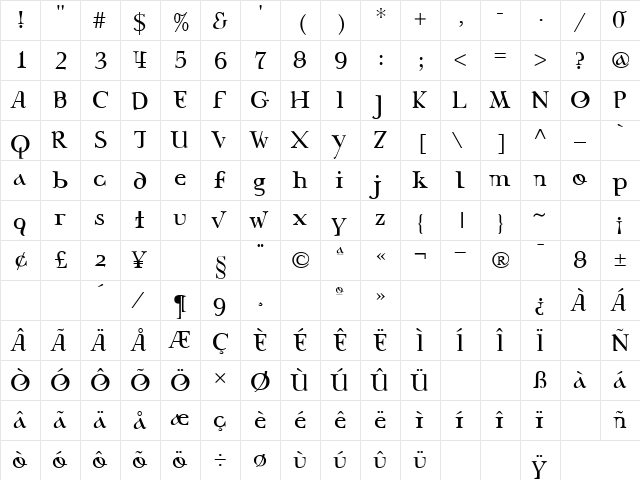
CaseSeraSeraLight Regular
Design Context for CaseSeraSeraLight Typeface
CaseSeraSeraLight takes a measured approach to typography — its balanced proportions and neutral character make it a reliable workhorse for both digital and print work. Its slender proportions lend an understated elegance to any composition.